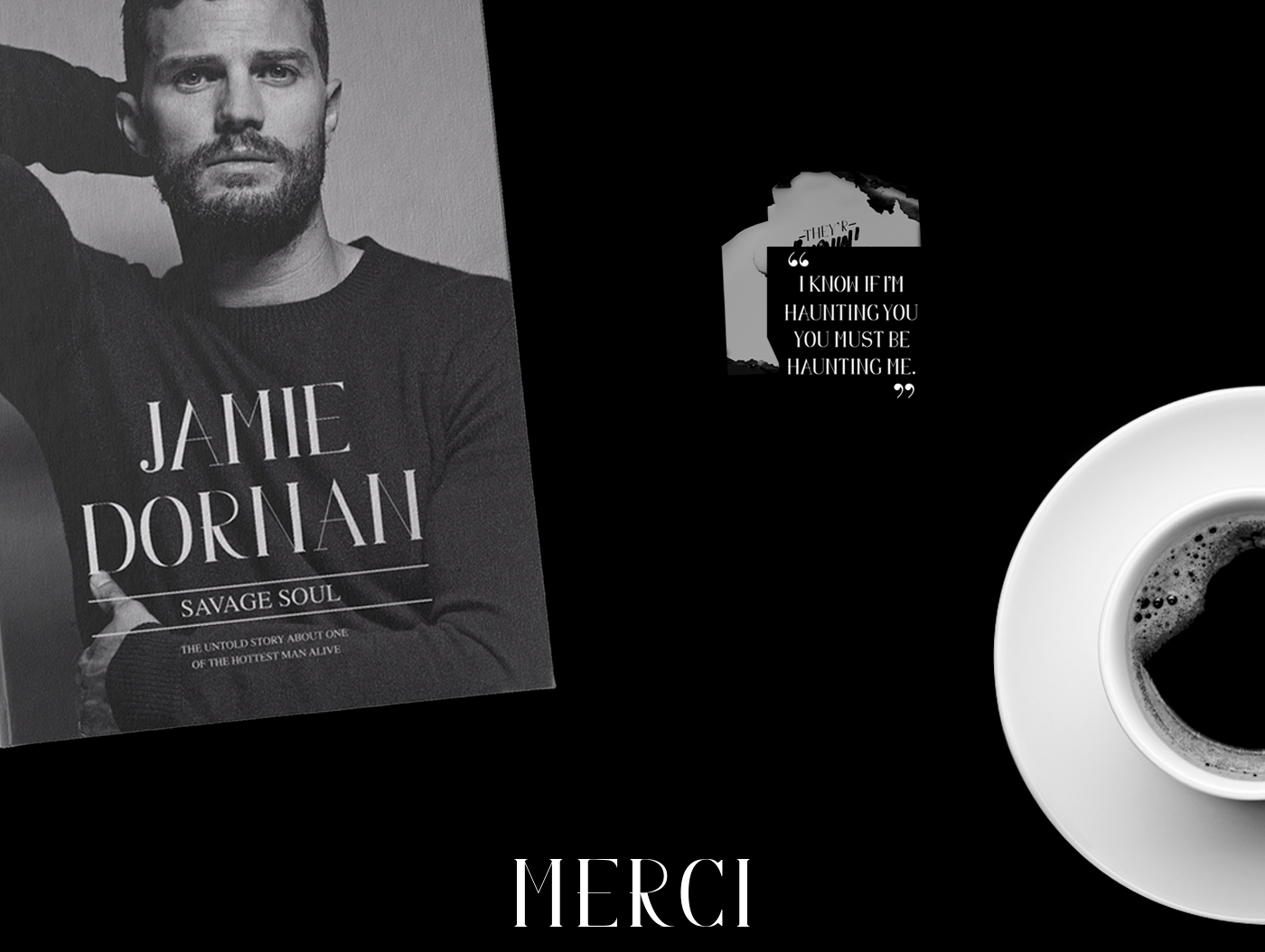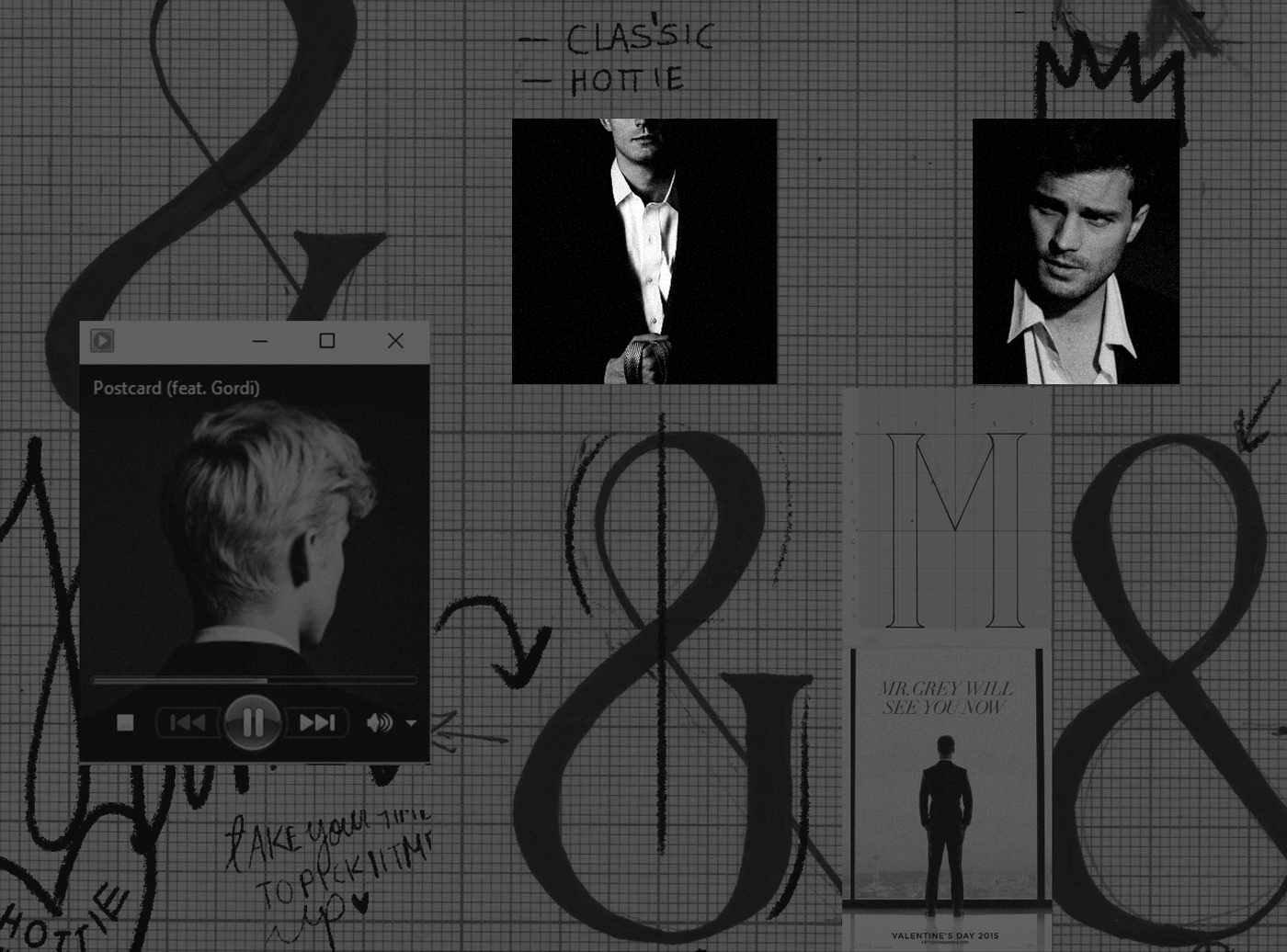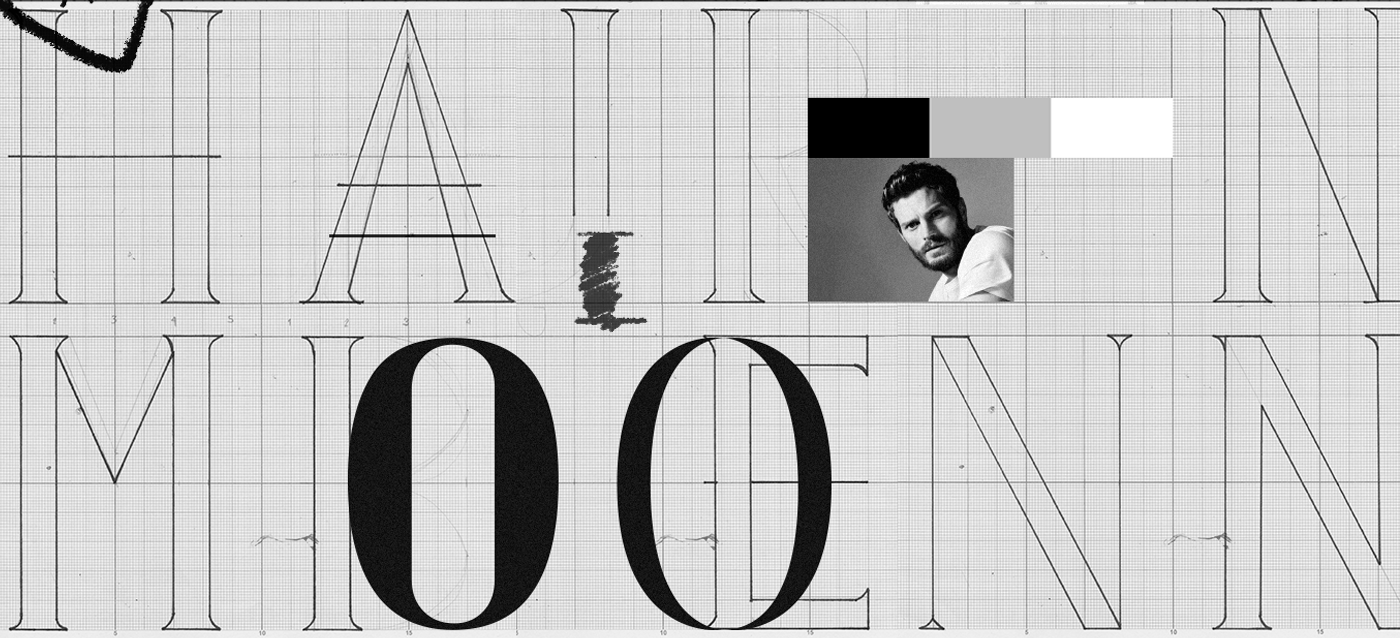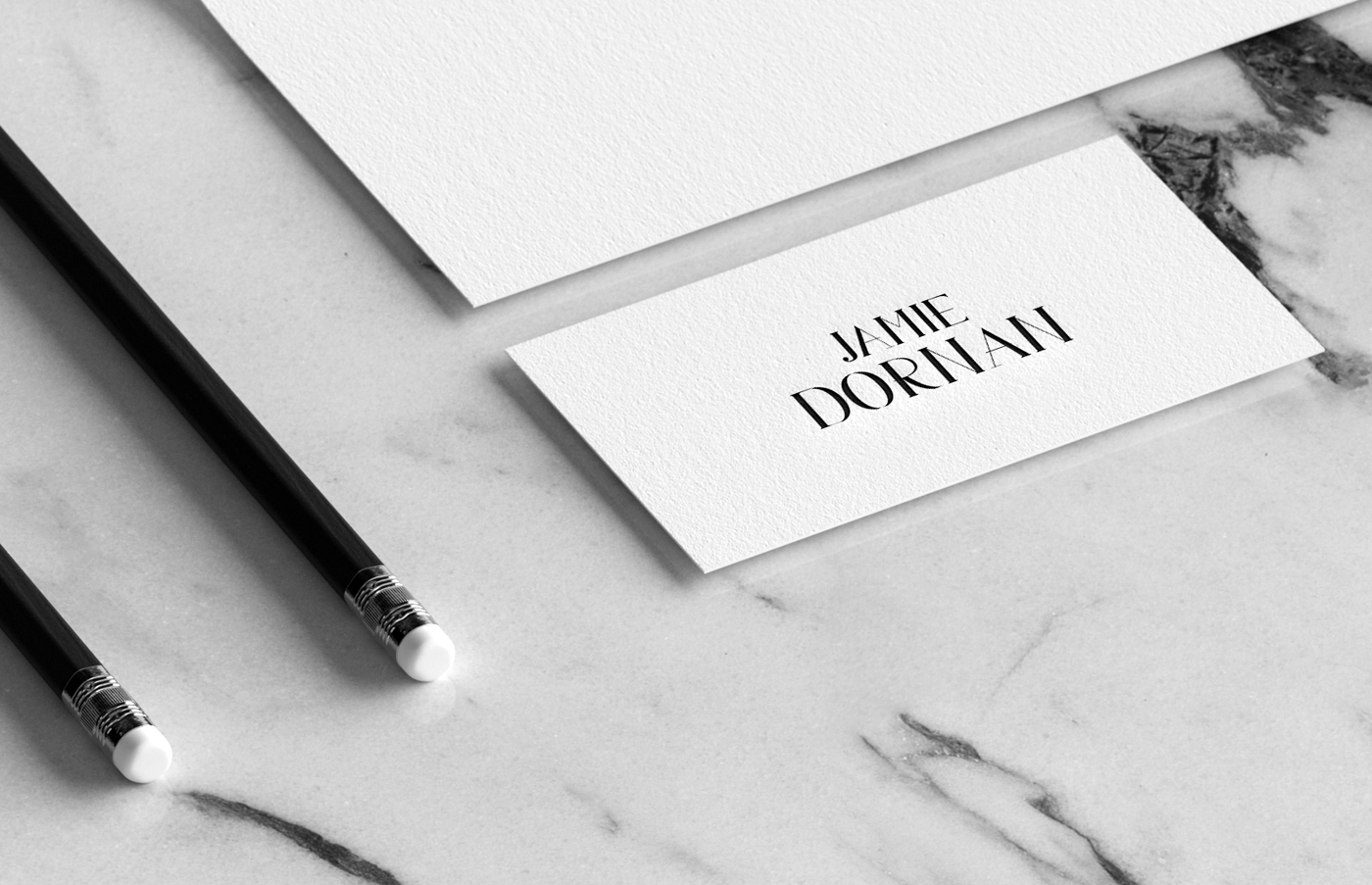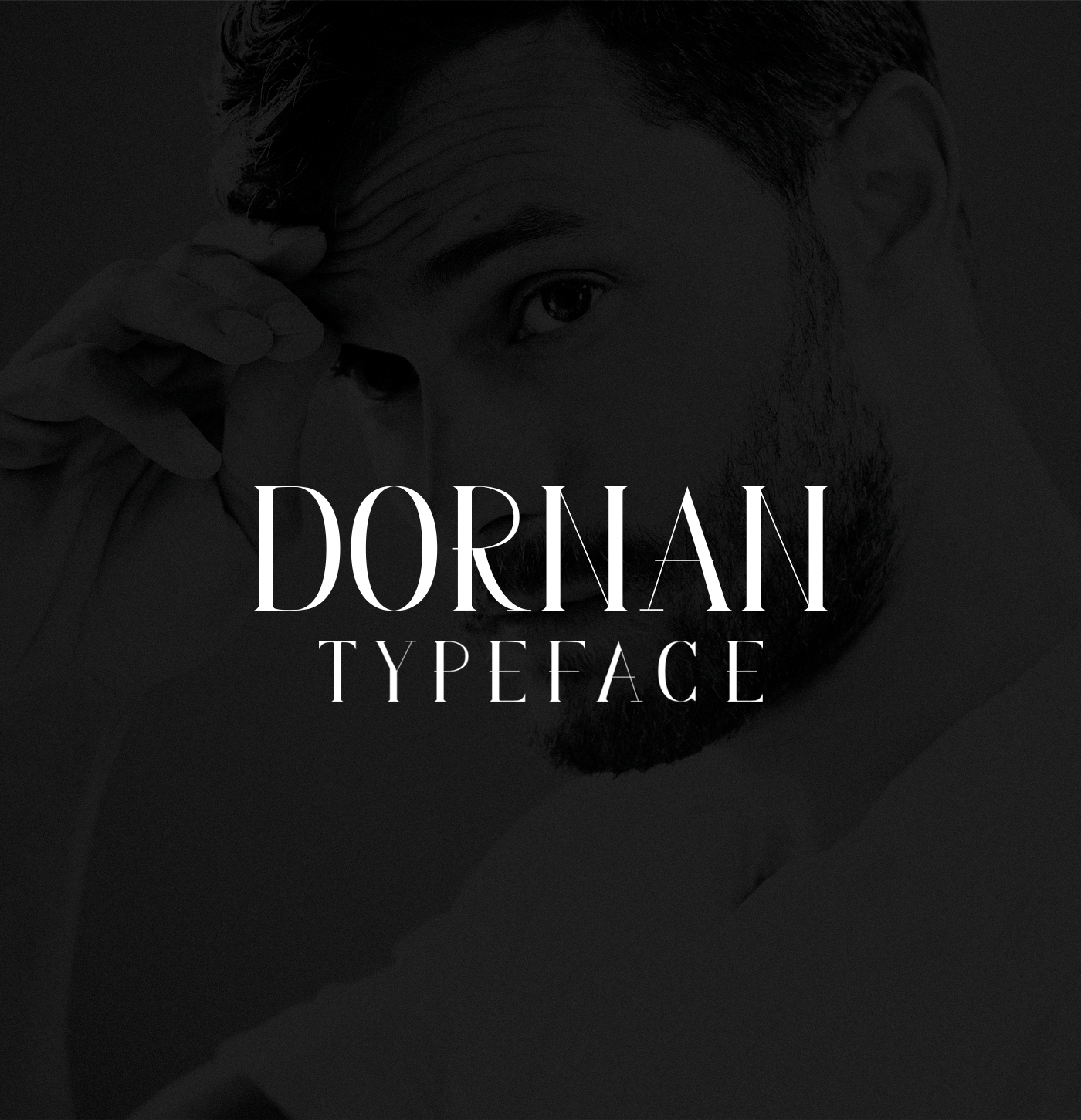
Dornan Font
Typographic font inspired by Jamie Dornan. Simple and casual strokes for the special occasion. Dornan – Elegant Serif Font has been crafted from scratch with a structural logic of its own: a fusion of pure geometry and optical balance. By combining a variety of styles Dornan – Elegant Serif Font is suitable for Logo, greeting cards, quotes, posters, branding, name card, stationary, design title, blog header, art quote, typography.
Dornan – Elegant Serif Font also suitable for art, modern envelope lettering or book design, happening style like handdrawn design or watercolor design theme, craft design, any DIY project, book title, wedding font, pop vintage design, or any purpose to make our art/design project look pretty and trendy.